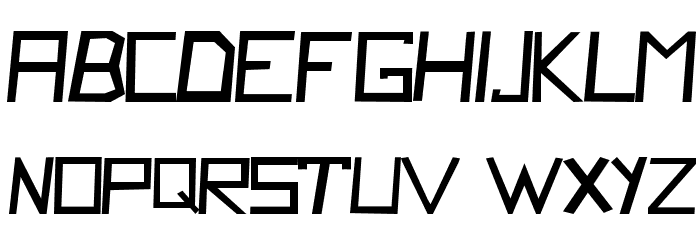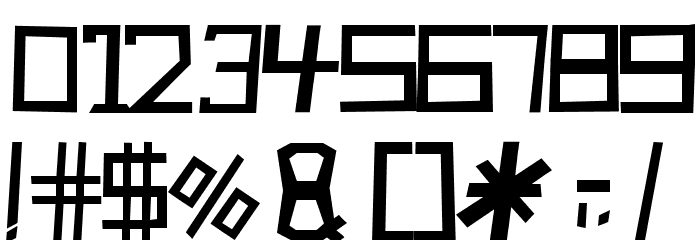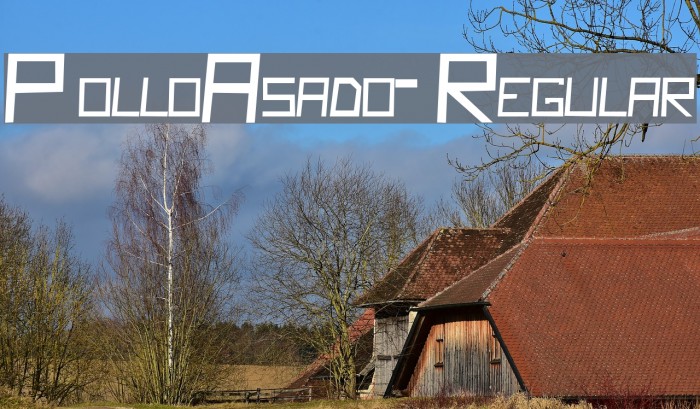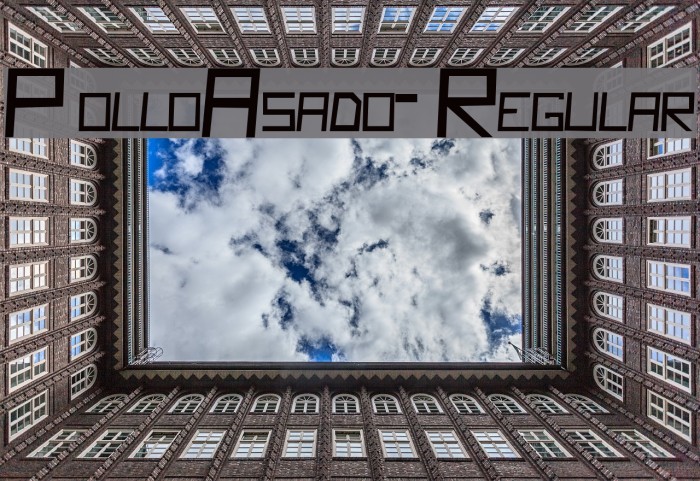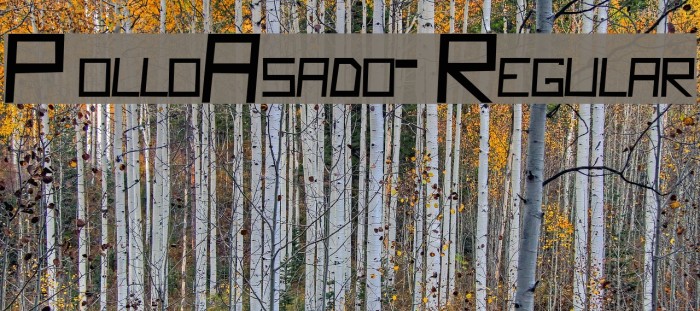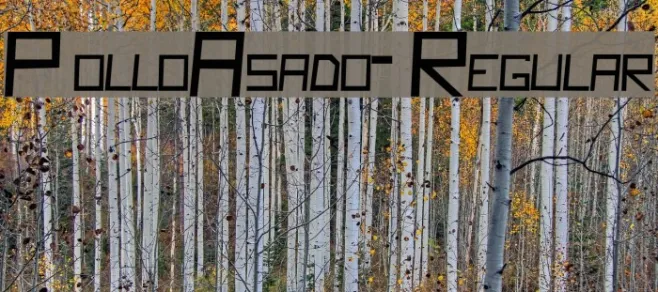
PolloAsado-Regular Font
This font features a bold, geometric style with sharp angles and a modern aesthetic. The uppercase letters are distinct with a futuristic design, characterized by angular cuts and a consistent stroke width. The numerals follow the same geometric pattern, ensuring uniformity across the character set. Special characters are creatively designed to match the overall theme, making them suitable for attention-grabbing headlines or logos. The font's unique style is ideal for projects that require a modern and edgy look.
A bold, geometric font with sharp angles and a modern aesthetic.
- Proposed Projects: Ideal for branding, logos, headlines, and modern design projects.